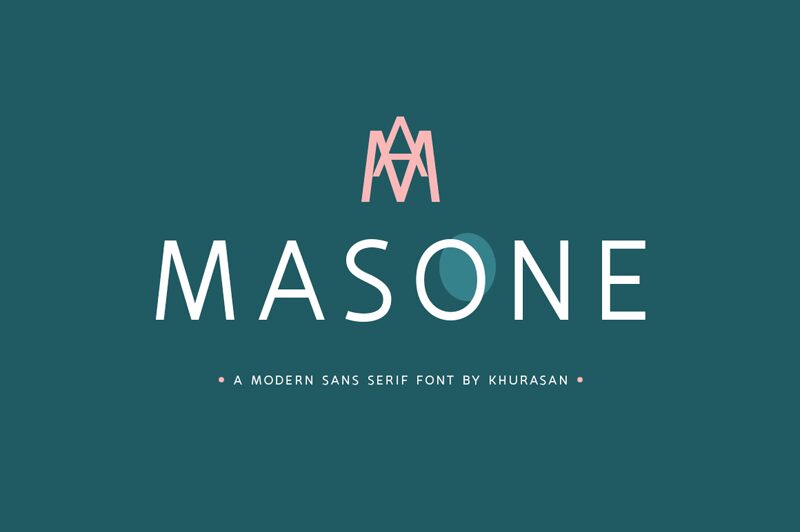
Masone
The perfect blend of modern sans serif elegance, Masone by Khurasan is a light font with a versatile style. It's an ideal choice for projects that demand sophistication and legibility, from web design to logo creation.